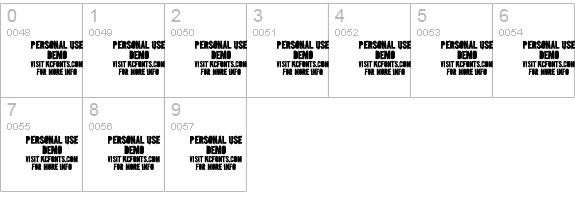
Introducing Noises in the Attic, a captivating and versatile font that is sure to spark your creativity! With its unique and eclectic design, this font embodies the perfect blend of vintage charm and contemporary flair. The letters are meticulously crafted, featuring intricate details and unexpected twists, making each character a work of art on its own. Noises in the Attic font is a true testament to the power of imagination, evoking a sense of mystery and nostalgia. Its irregular lines and playful curves add a touch of whimsy to any project, whether you're designing a logo, creating a poster, or crafting a stunning headline. This font effortlessly captures attention and leaves a lasting impression. But what makes Noises in the Attic truly special is that it is freely available to download at FontsMarket.com. Yes, you read that right – this extraordinary font can be yours without spending a penny! Now, you can bring a touch of enchantment and character to your designs without breaking the bank. Noises in the Attic font offers a wide range of possibilities, allowing you to explore various creative avenues. Whether you're aiming for a vintage-inspired look or a modern twist, this font has got you covered. Its versatility makes it ideal for a variety of projects, from branding and packaging to web design and social media graphics. So, why wait? Unleash your imagination and download Noises in the Attic font today from FontsMarket.com. With its mesmerizing aesthetic and the freedom to use it without any cost, this font is bound to become a valuable asset in your design toolbox. Let the whispers of creativity echo through your work, as Noises in the Attic font takes center stage and leaves a lasting impression on your audience.